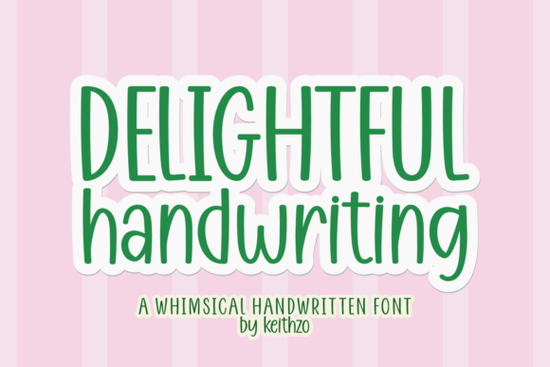
If you’ve been hunting for a tall, skinny handwritten typeface with a playful retro personality, the Delightful Handwriting Font ticks all those boxes. Its slightly uneven baseline, airy letterforms, and just enough quirkiness make it feel like marker doodles straight out of a 70s classroom without slipping into messy or unreadable territory. Designers, crafters, and small shop owners who want that effortless, hand‑drawn look will find it incredibly useful for social media visuals, product labels, and quick branding projects.
What makes this handwriting font feel so retro?
The big, open counters and tall x‑height give it a breezy, optimistic rhythm that echoes old magazine ads and vinyl record covers. Every character stays reasonably consistent, but the slight wobble and gentle slant inject a human touch that a purely digital script can’t fake. Because the strokes are thin and even, the Delightful Handwriting style doesn’t overpower your message it just frames it with a nostalgic, friendly vibe. You’ll notice that a, e, and r have a subtle bounce, while the ascenders and descenders stay short, keeping the whole word tight and easy to slot into narrow layouts like Instagram Story quotes or slim product tags.
Which fonts pair well with Delightful Handwriting?
A tall skinny script like this shines when you set it against something calm and solid. Pair it with a geometric sans‑serif for a clean, modern layout, or try a slightly textured serif if you want a more editorial feel. Within the script family, there are several combinations worth exploring:
- With a bolder retro script: Paulina brings a rounder, heavier hand‑lettered energy that works nicely for sub‑headings when Delightful Handwriting handles the main quote. Take a look at the Paulina font to compare its thick-to-thin transitions.
- For a relaxed, slightly messy contrast: Restweek offers a slouchy, unpolished brush script that sits at the opposite end of energy great for journal-style kits. You can explore the Restweek font’s extended styles if you want varied weights.
- Adding an elegant touch: Amorate Signature introduces flowing loops and a darker stroke weight, making it a beautiful choice for a website header or wedding stationery. Check out the Amorate Signature typeface for its stylish ligatures.
- For a soft, romantic complement: Magnolia feels airy and delicate, so using it alongside Delightful Handwriting can create a lovely layered greeting card or a sweet product label. Browse the Magnolia font if you need lots of swash alternates.
Stick to one playful script per design, and let Delightful Handwriting carry the main message while the supporting font stays understated often that means limiting your palette to two typefaces total.
What kind of projects benefit from a tall skinny handwriting font?
Creators working on digital stickers, sublimation tumbler wraps, and hand‑lettered quote posters gravitate toward this shape because it fills vertical space without feeling heavy. Crafters who design cardstock cutouts for Cricut or Silhouette machines appreciate the thin weeding paths; the font holds up well even at small sizes when you cut heat‑transfer vinyl. If you sell digital planners, a tall script adds personality to habit trackers and date headers without overpowering the grid. Social media templates for Pinterest pins or TikTok thumbnails also get a lift from the upright, attention‑grabbing letterforms that are still easy to read on a phone screen.